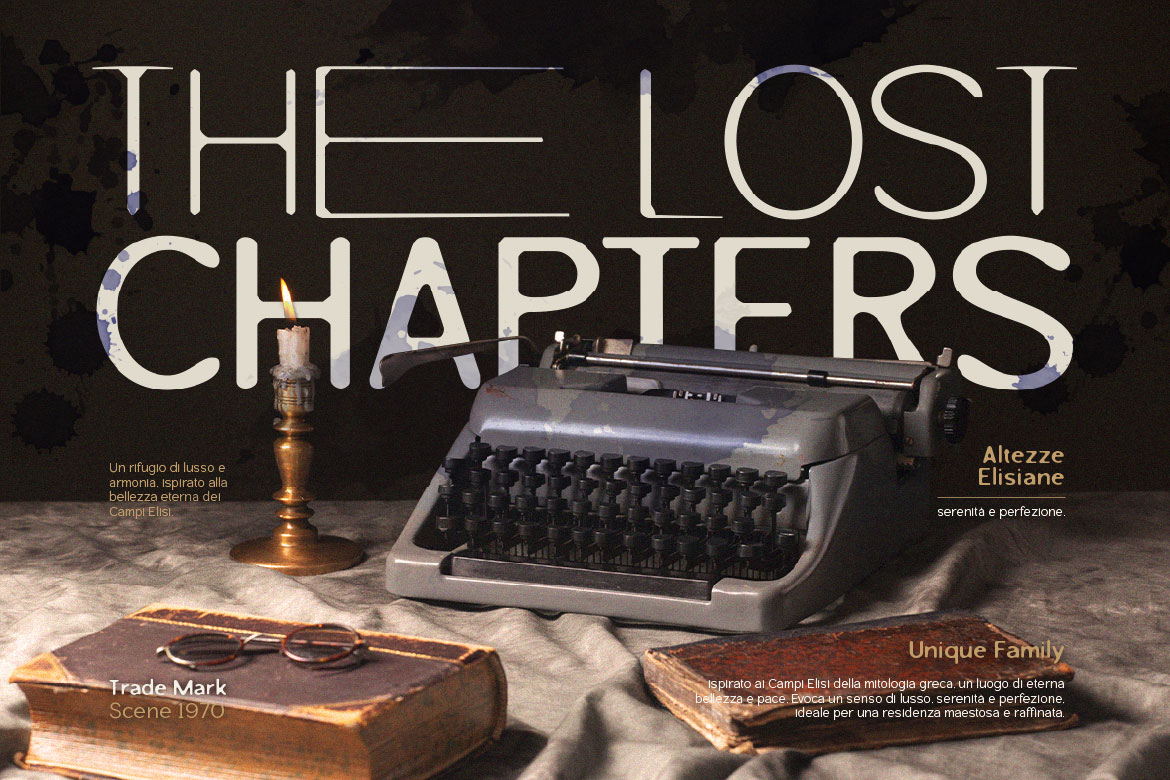
Streetwear and custom culture have always thrived on bold, high-impact visuals. From underground clothing lines to motorcycle apparel, blackletter and gothic typography remains the go-to style for creating rebellious, head-turning designs.
At Burntilldead Studio, we love combining traditional gothic calligraphy with modern vector precision. Here are our top blackletter display fonts to give your merch a raw, custom edge.
Metalsmith balances sharp gothic angles with smooth sign-painter curves. It’s ideal for heavy graphic tees and back-print illustrations that need strong legibility from a distance.
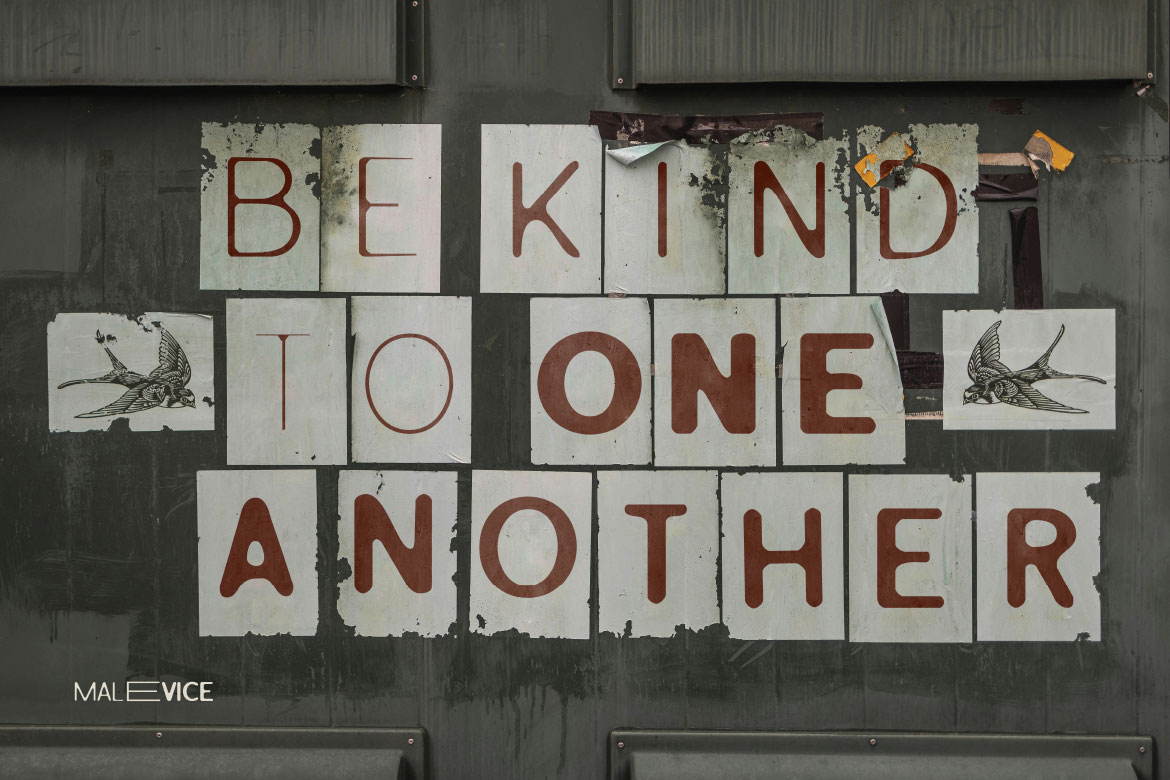
Featuring subtle ink-bleed textures and rugged edges, Malevice Inkbleed gives designs an authentic, hand-printed vintage feel right out of the box.
For luxury streetwear or dark fantasy themes, Baronial adds intricate ornamental flourishes that turn simple letters into complex centerpiece art.